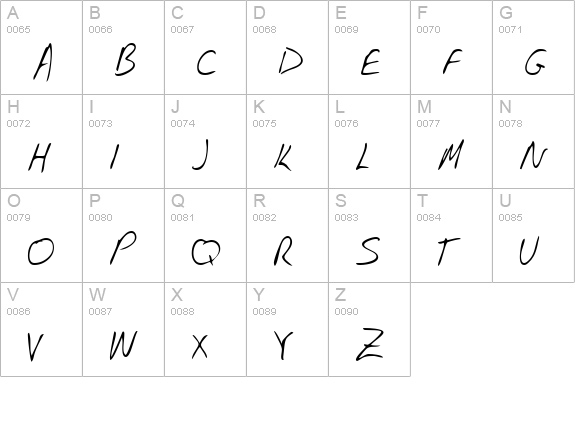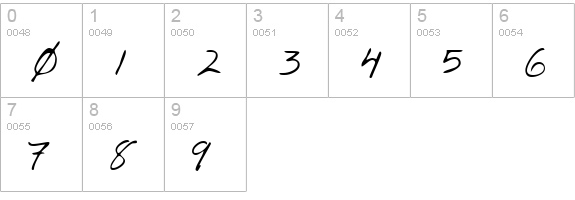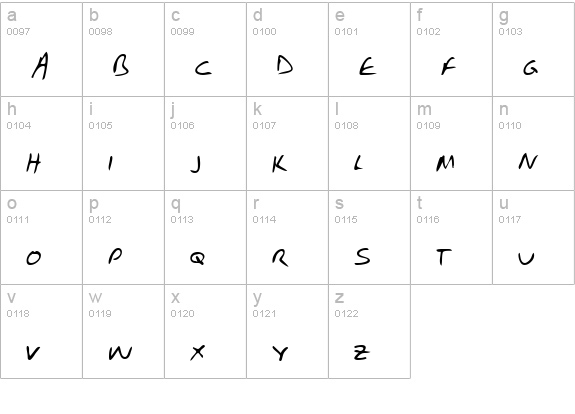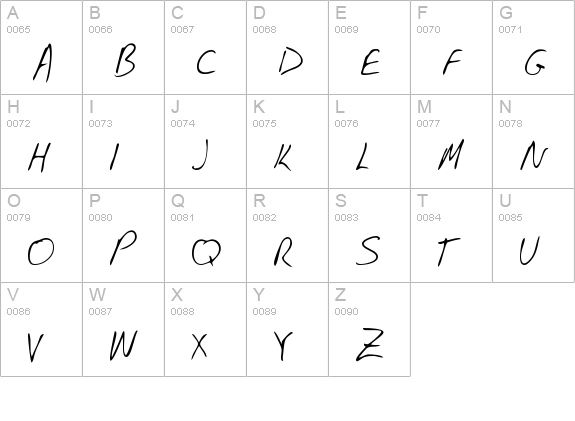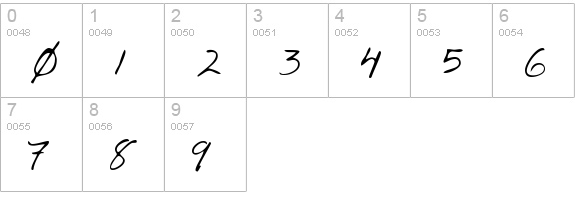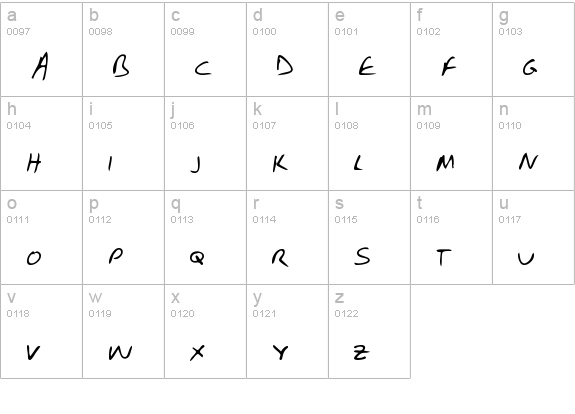
FostersHand Regular is the standard, neutral variant in the FostersHand typeface family \xE2\x80\x94 well suited to general body text, paragraphs, and standard typographic work.
FostersHand Regular is a charming and versatile handwritten font that exudes a warm and friendly vibe. Its flowing strokes and casual style make it perfect for a wide range of design projects, from invitations to logos to social media graphics. This font is ideal for adding a personal touch to your creations, giving them a unique and handmade feel. Best of all, FostersHand Regular is available for free download at FontsMarket.com. You can easily access this delightful font and start using it in your designs without any cost. Whether you're a seasoned designer looking to add a fresh touch to your work or a beginner eager to experiment with different fonts, FostersHand Regular is a fantastic choice that won't break the bank. Download it today and let your creativity shine with this wonderful and freely available font.